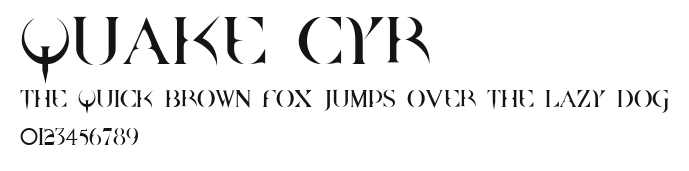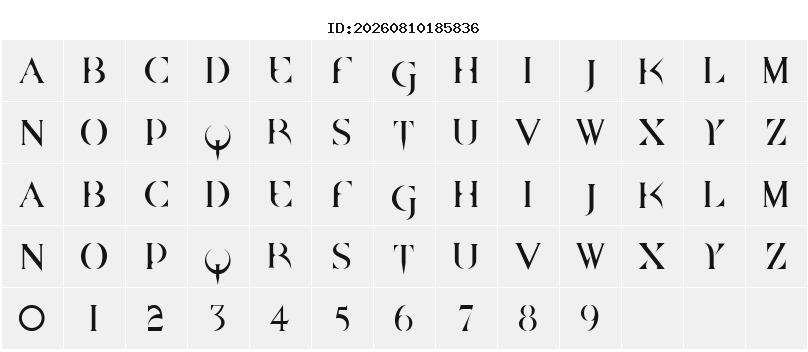
• Font Name: Quake Cyr
• Designer: Nikolay Dubina
• Description: It Is Created on motives of known game "Quake". Free!
Quake Cyr.ttf is a modern, elegant sans-serif font designed for ultimate readability and visual harmony. Perfect for branding, headlines, web design, and print materials.